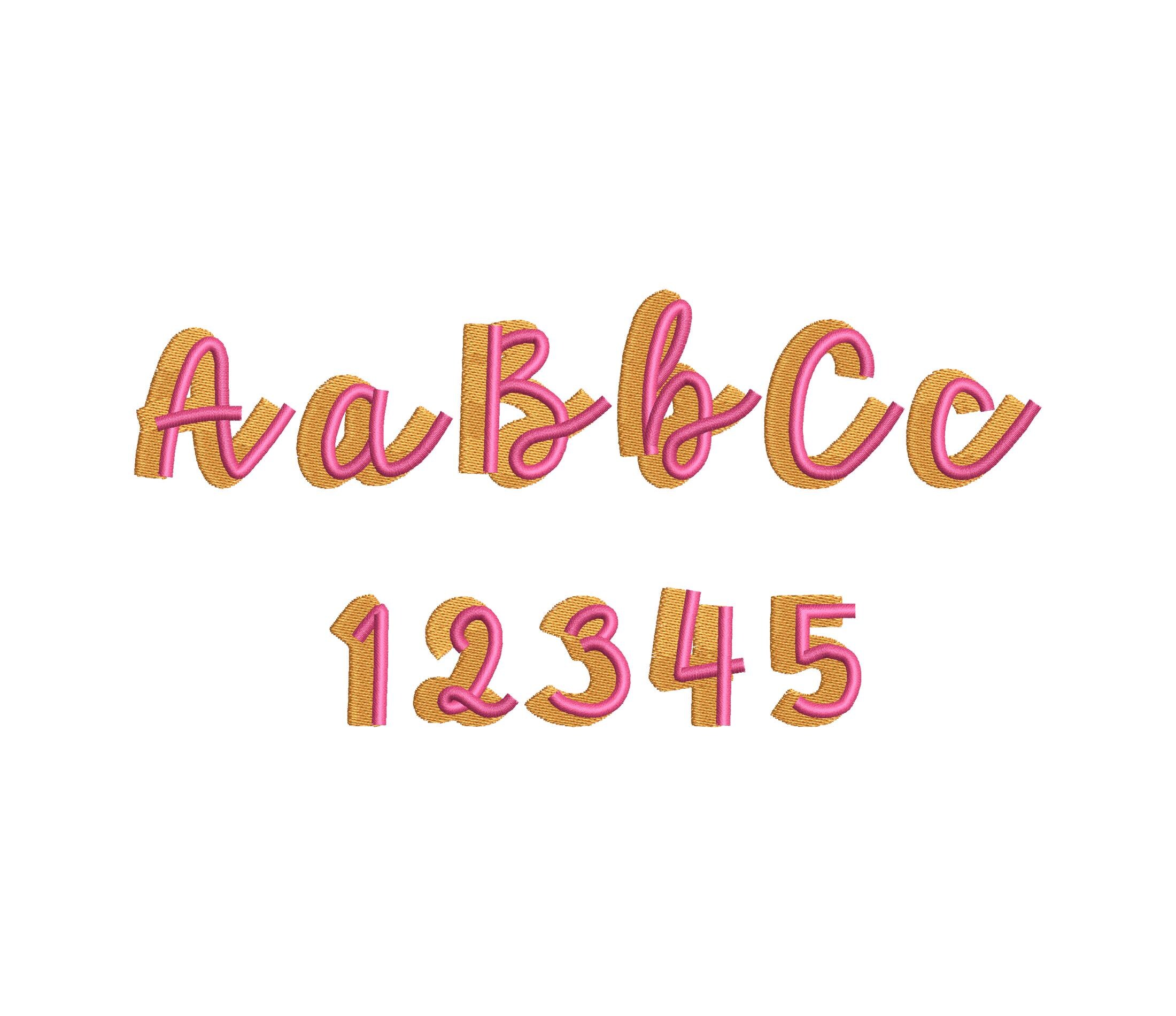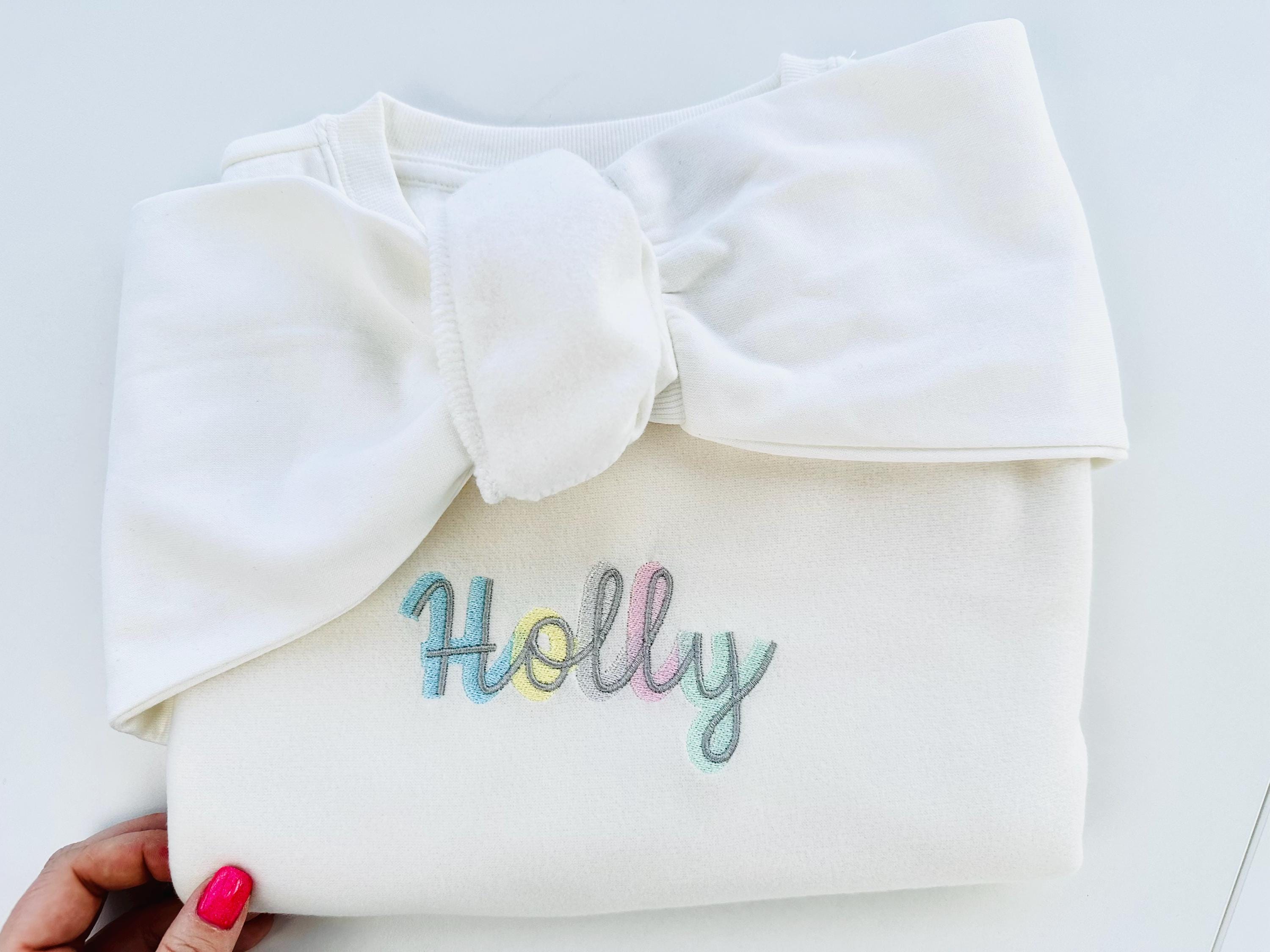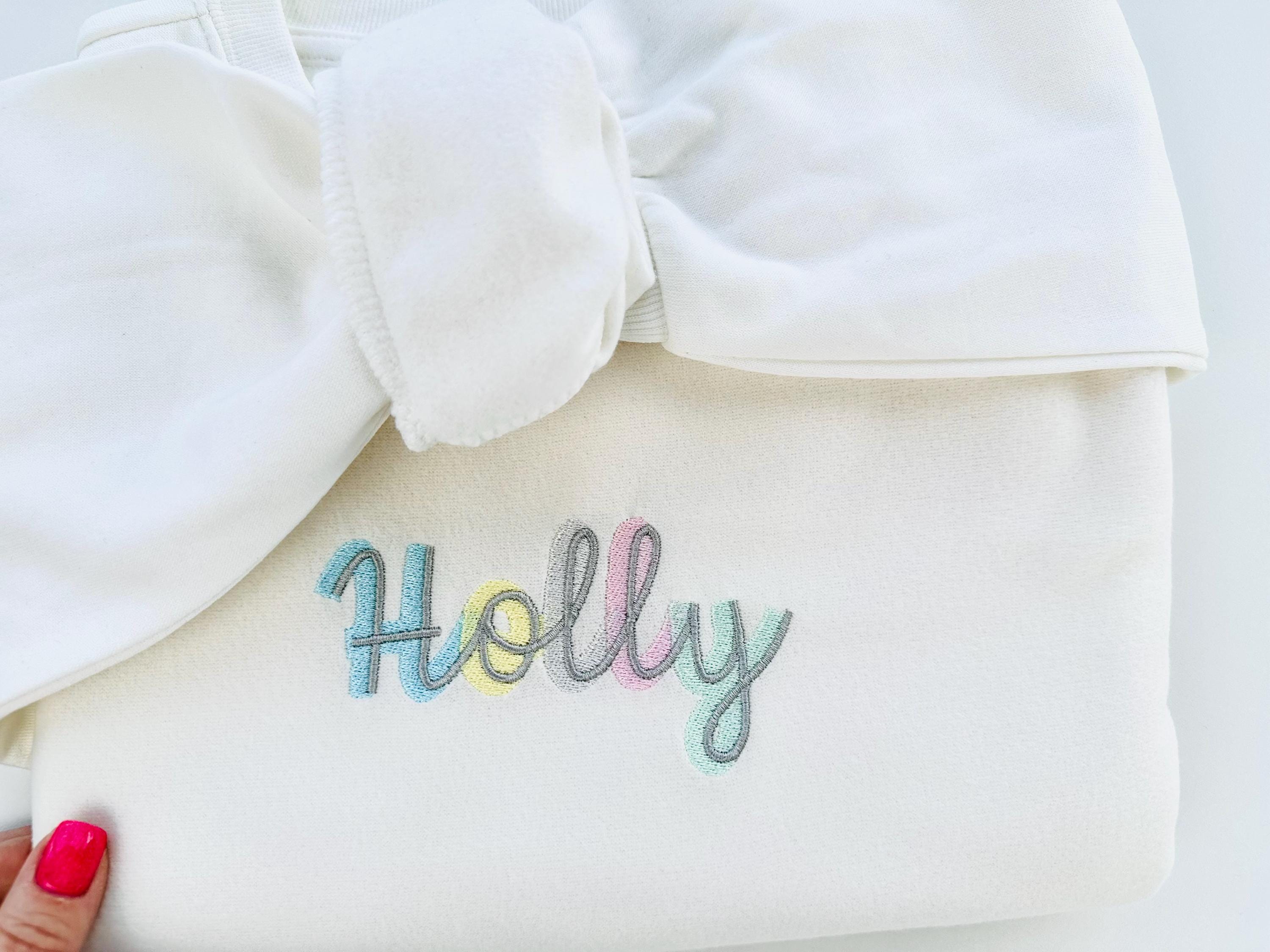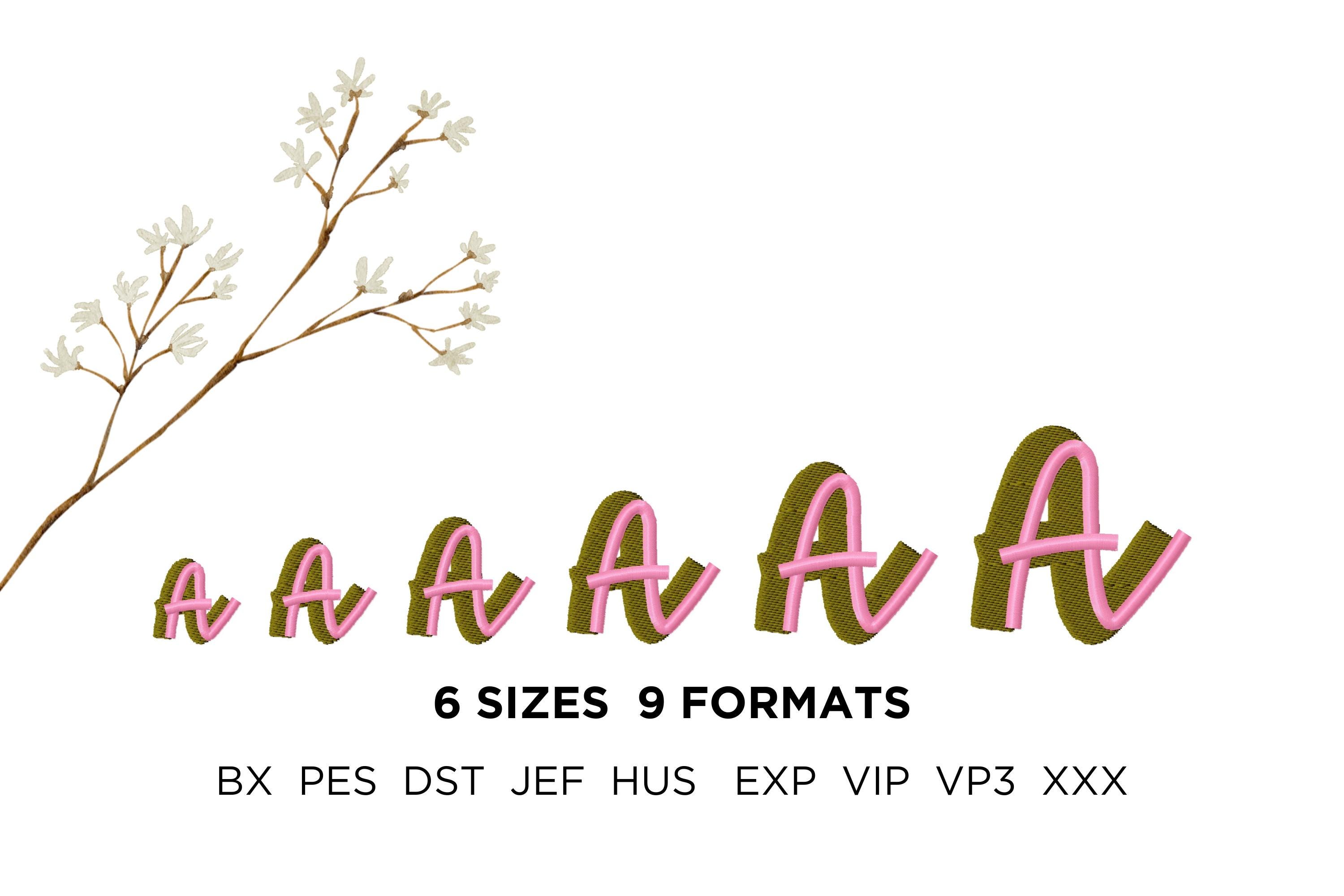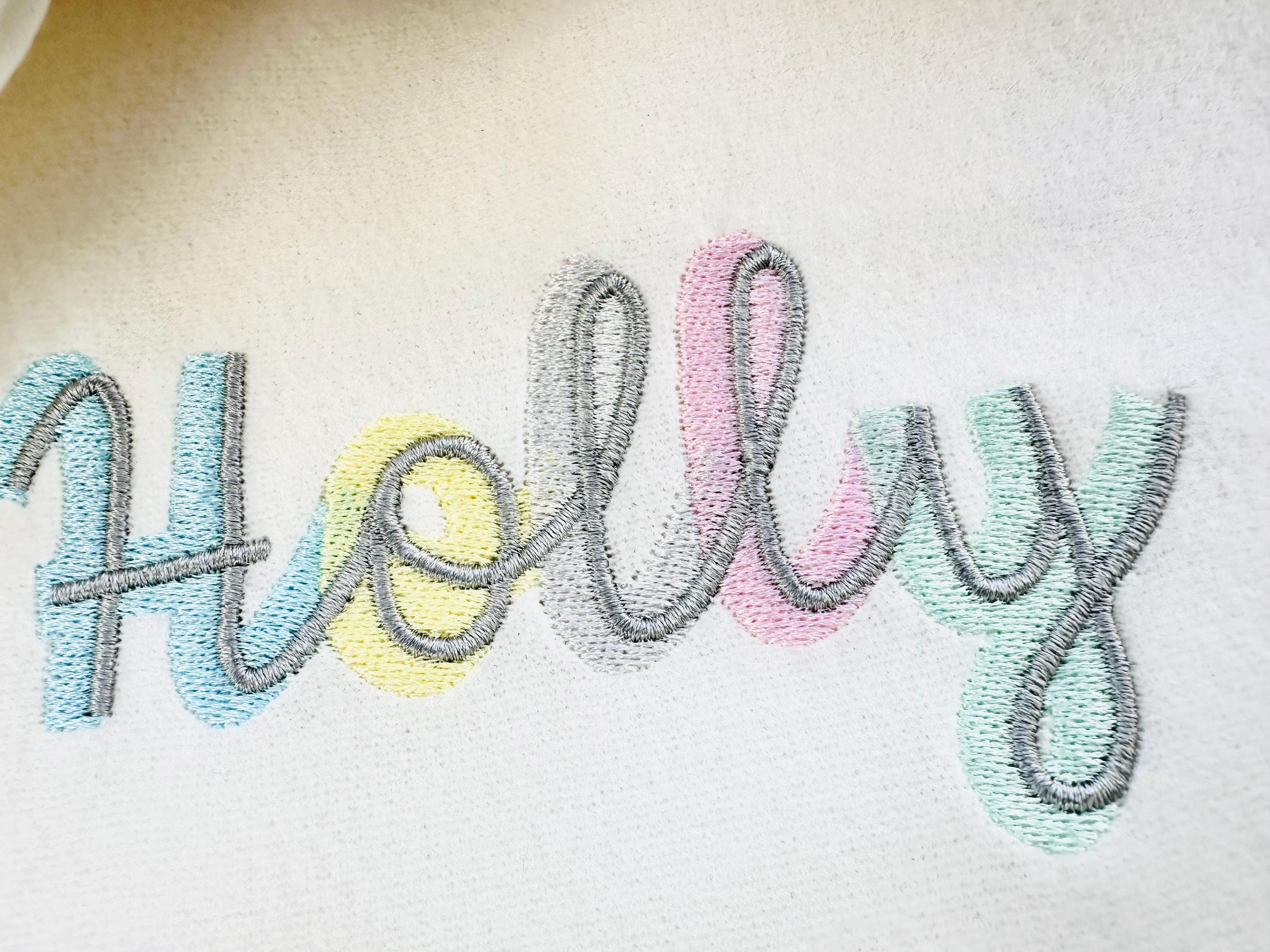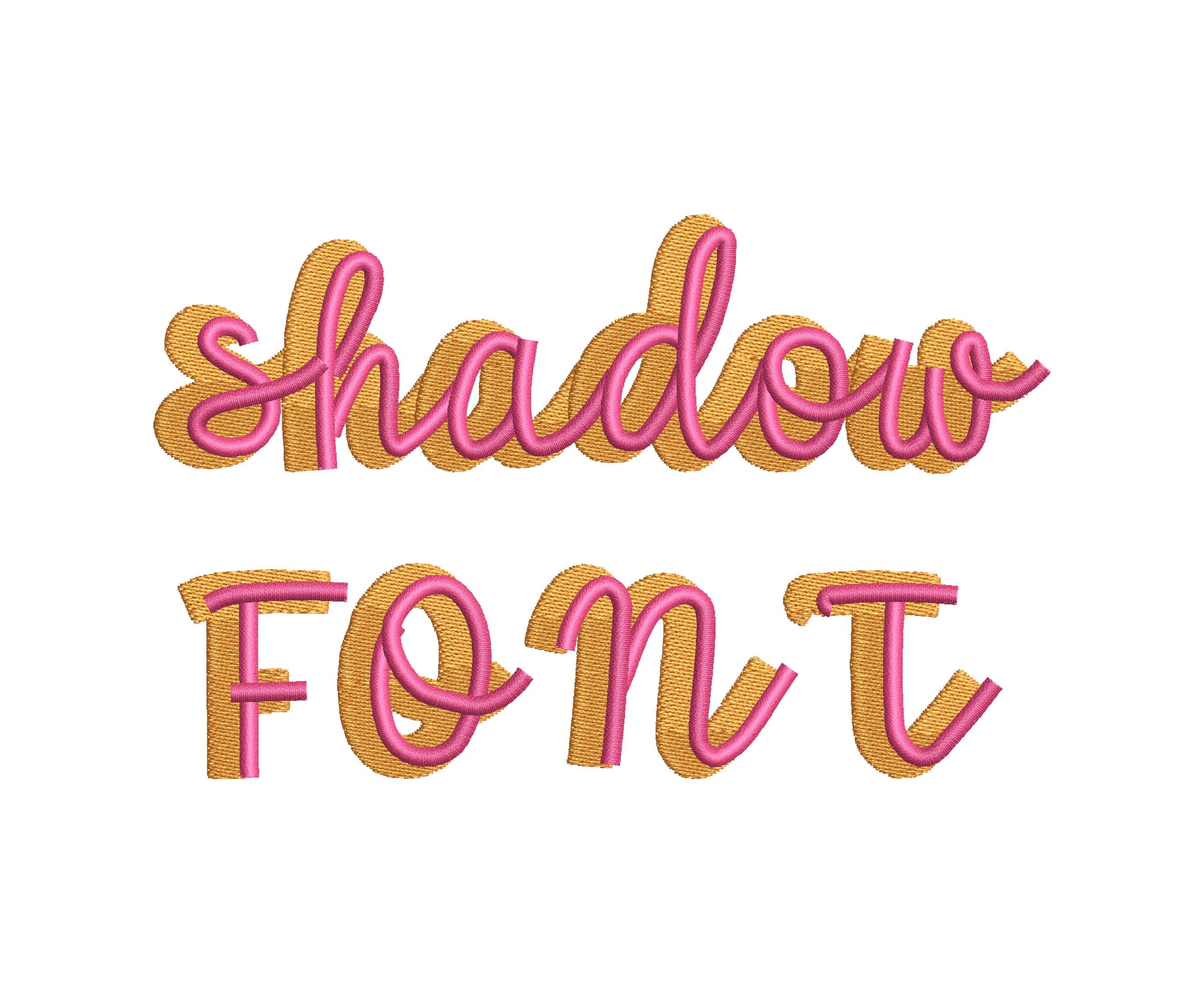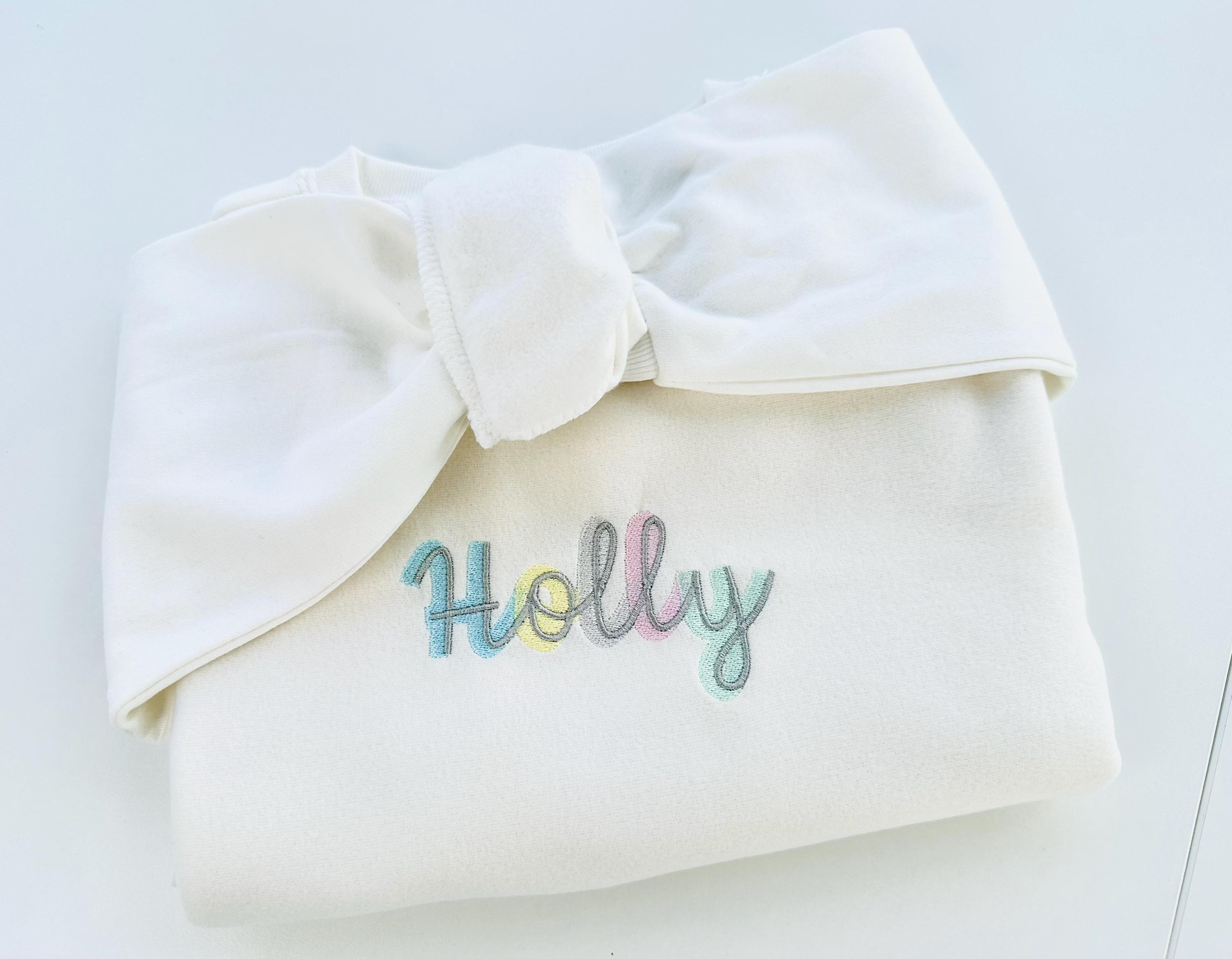
Handwritten script Shadow Font satin and fill stitch double 2 color alphabet monogram machine embroidery designs small sizes 0.8 up to 2.2 inch
Whole alphabet A-Z uppercase and lowercase letters, numbers 0-9, and ampersand.